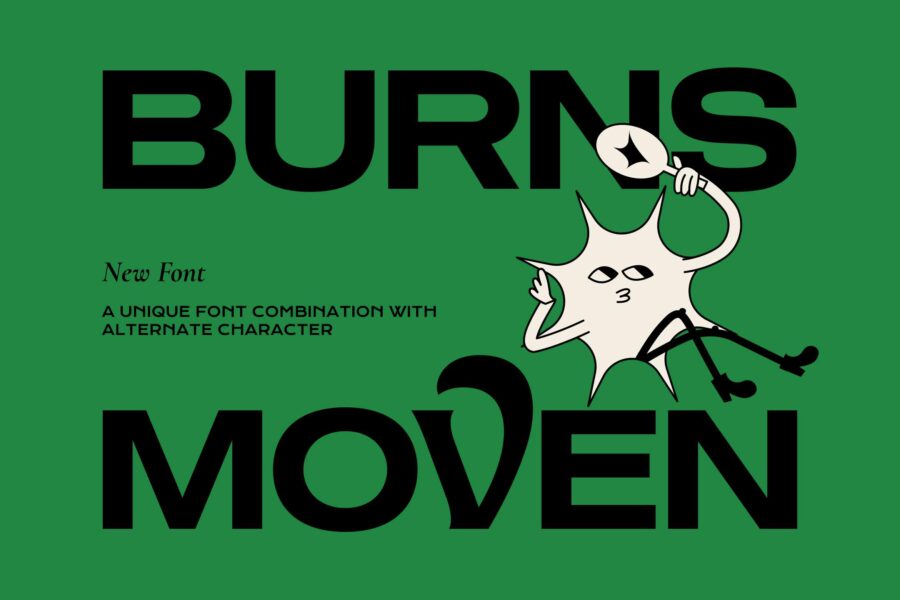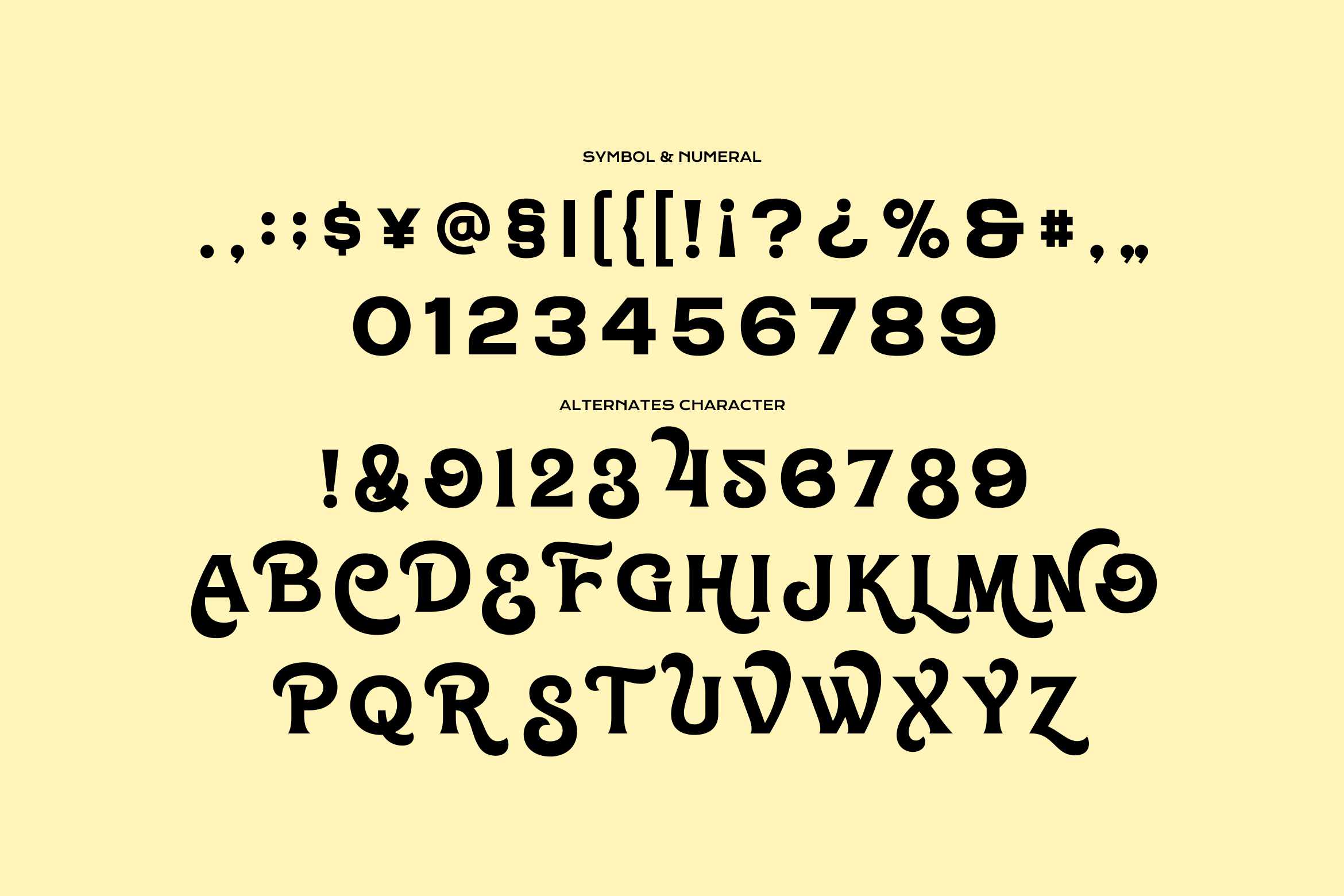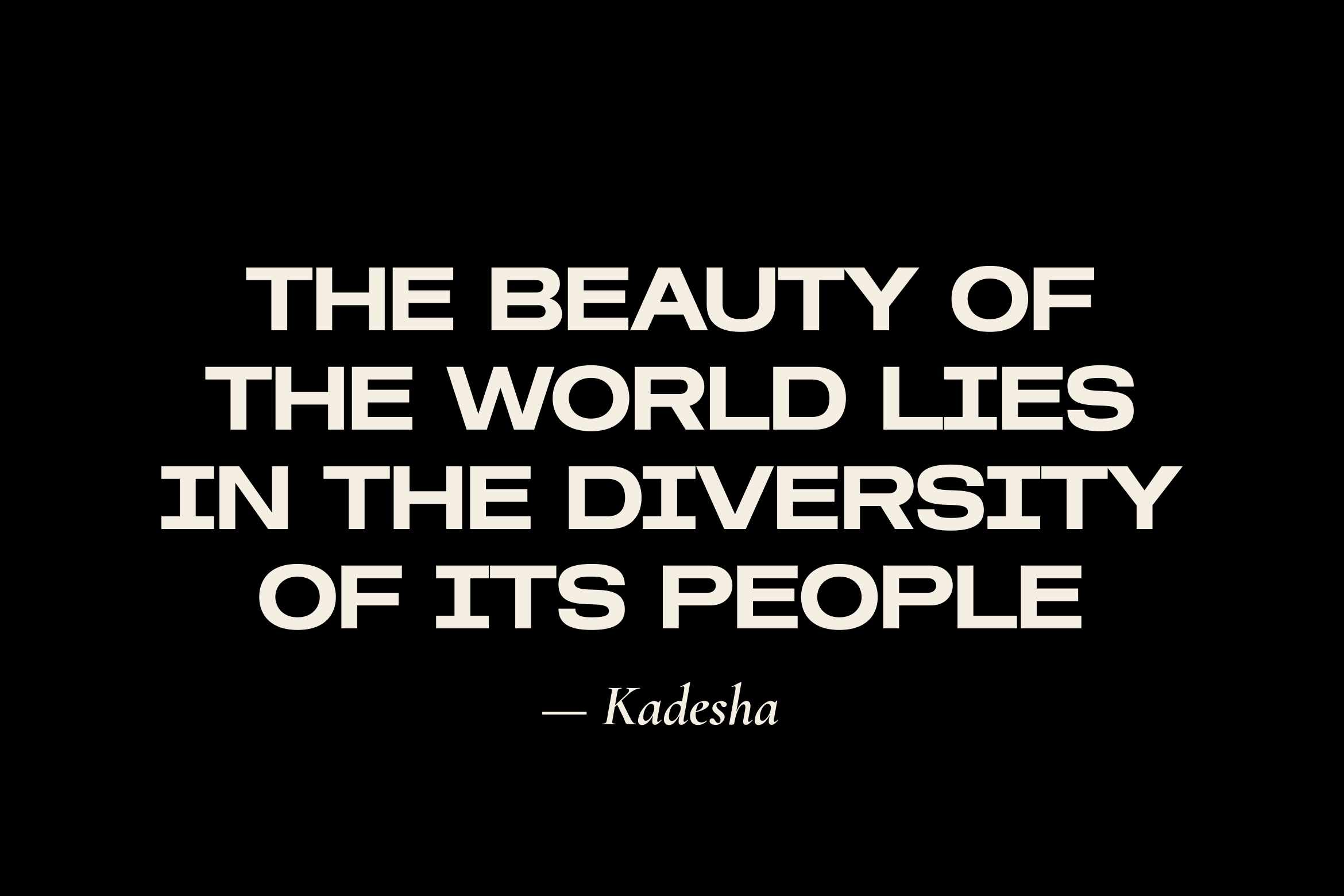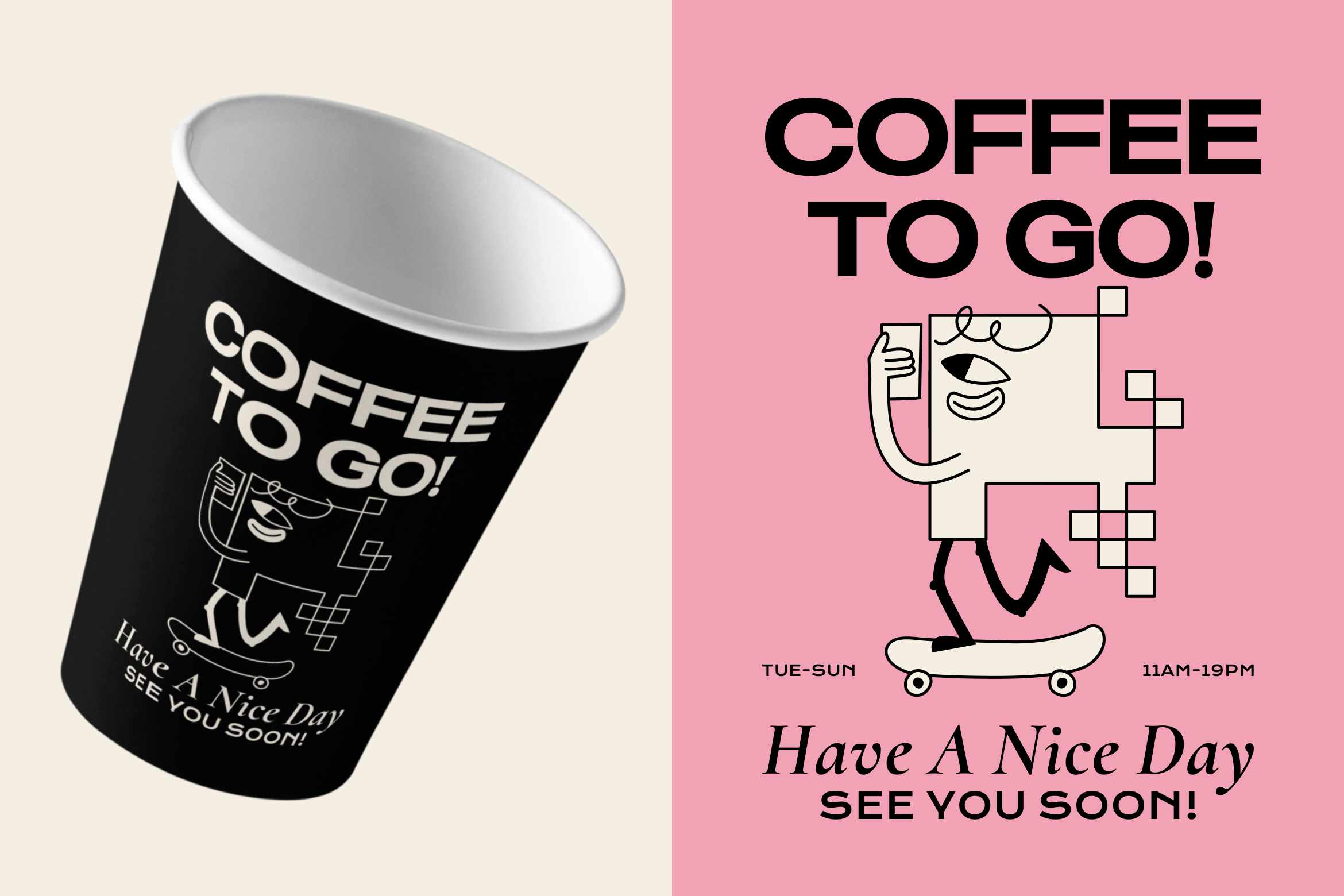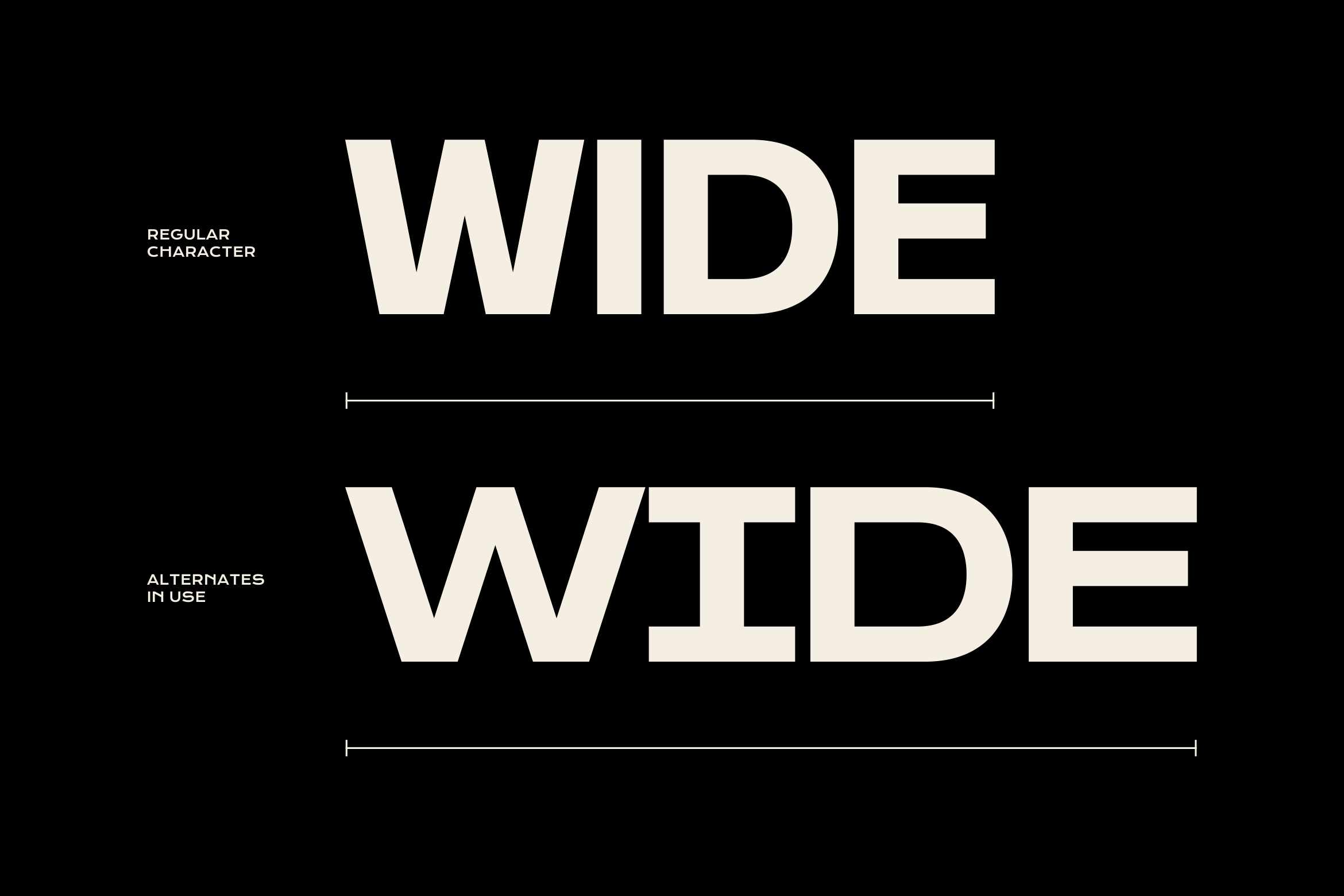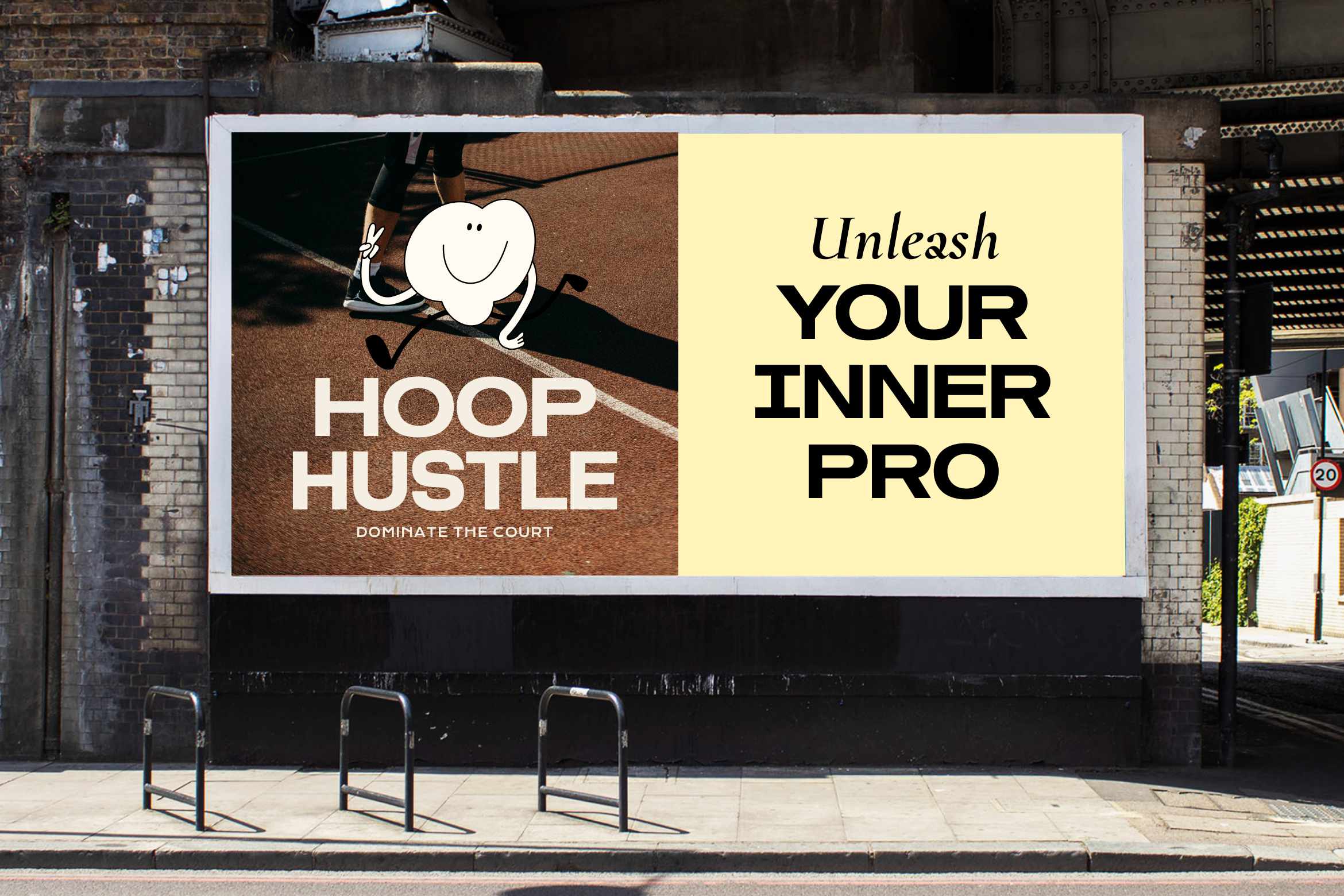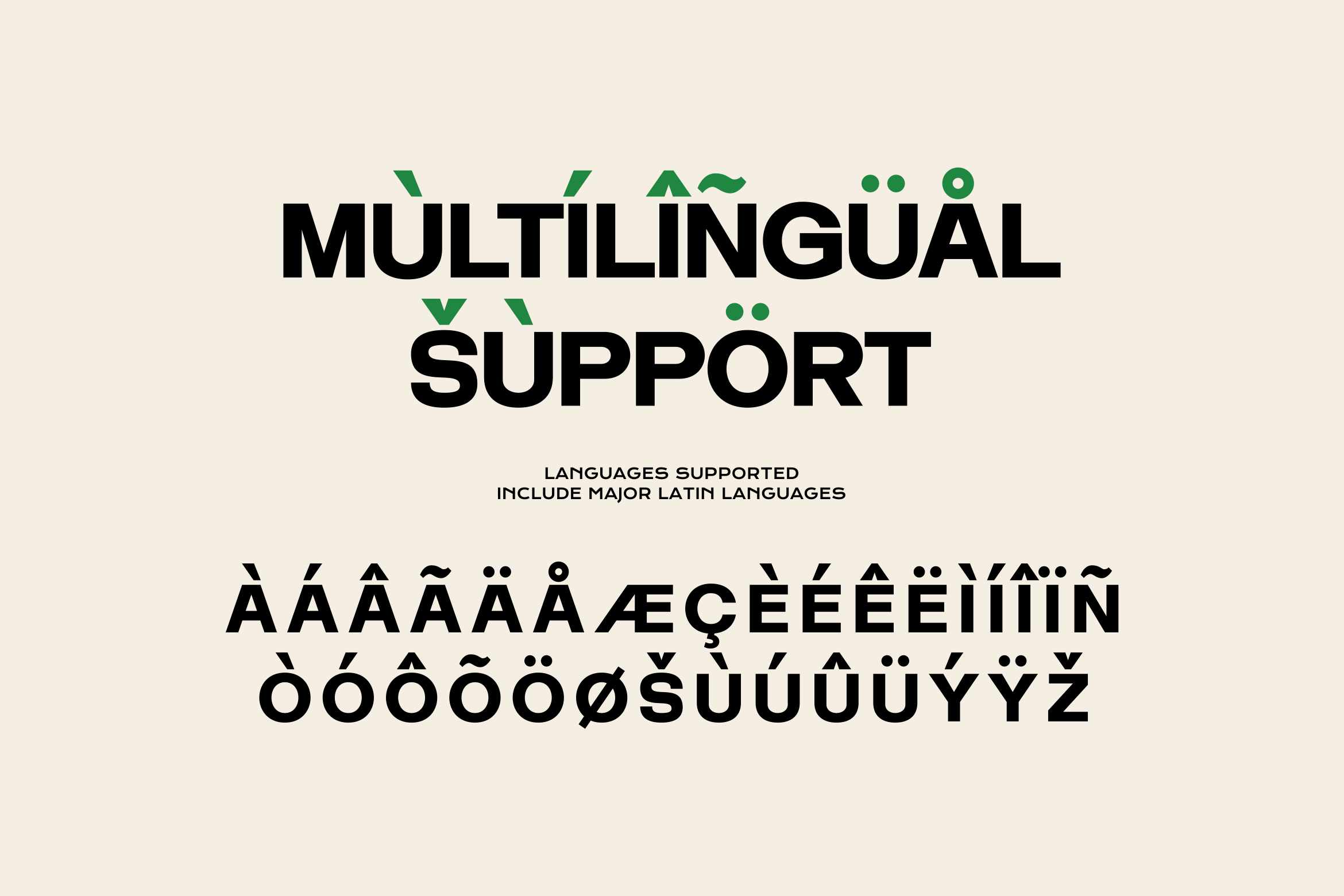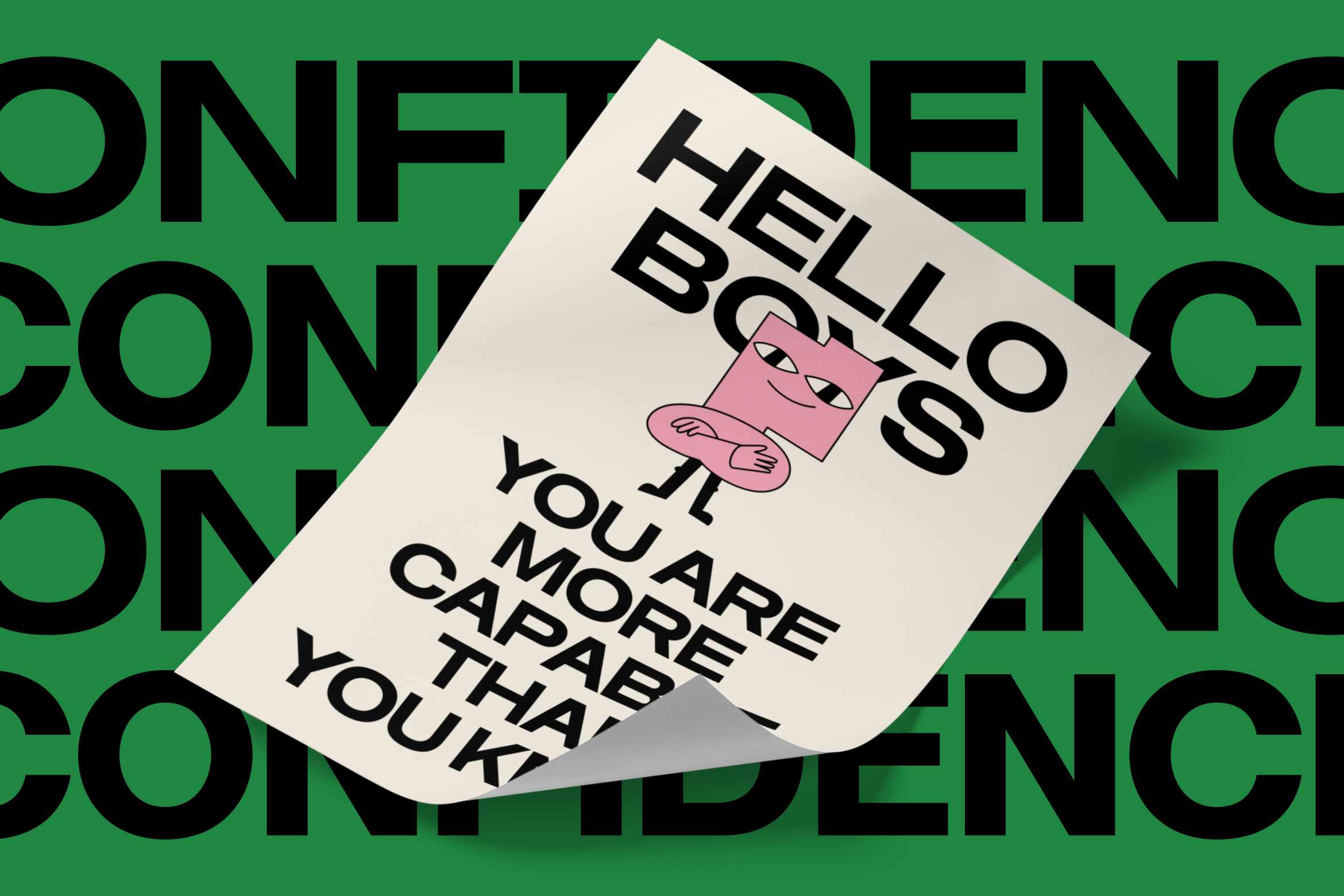
Burns Moven is a sharp, geometric sans serif typeface with a high-contrast twist — combining clean modern lines with quirky alternate characters for expressive statement pieces. Ideal for branding, urban fashion, packaging, and bold editorial design.
This font features alternate letterforms that break the rigidity of standard sans styles, adding a rebellious and creative flair. With multilingual support and a wide display form, Burns Moven is your go-to for punchy, confident typography.
Burns moven